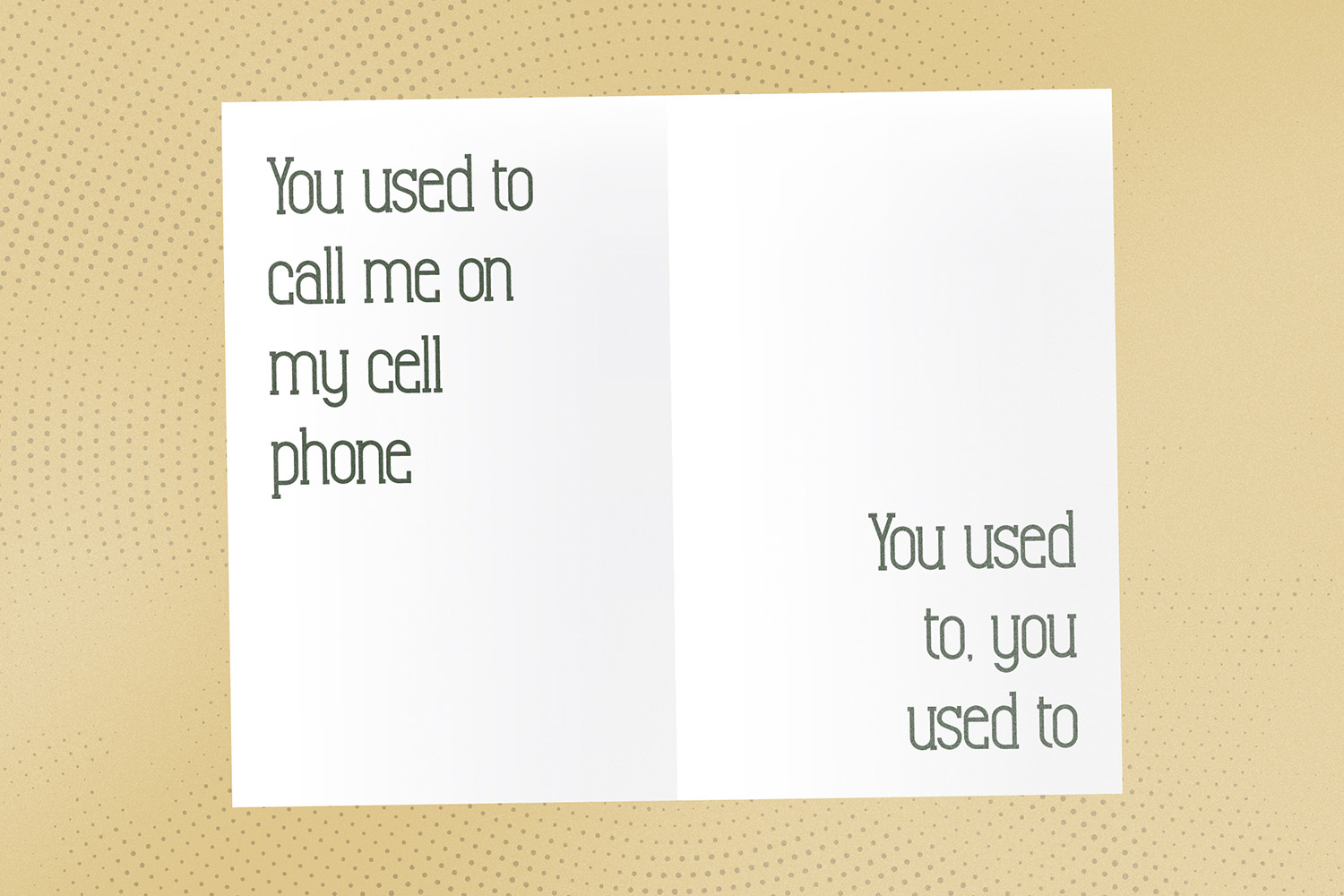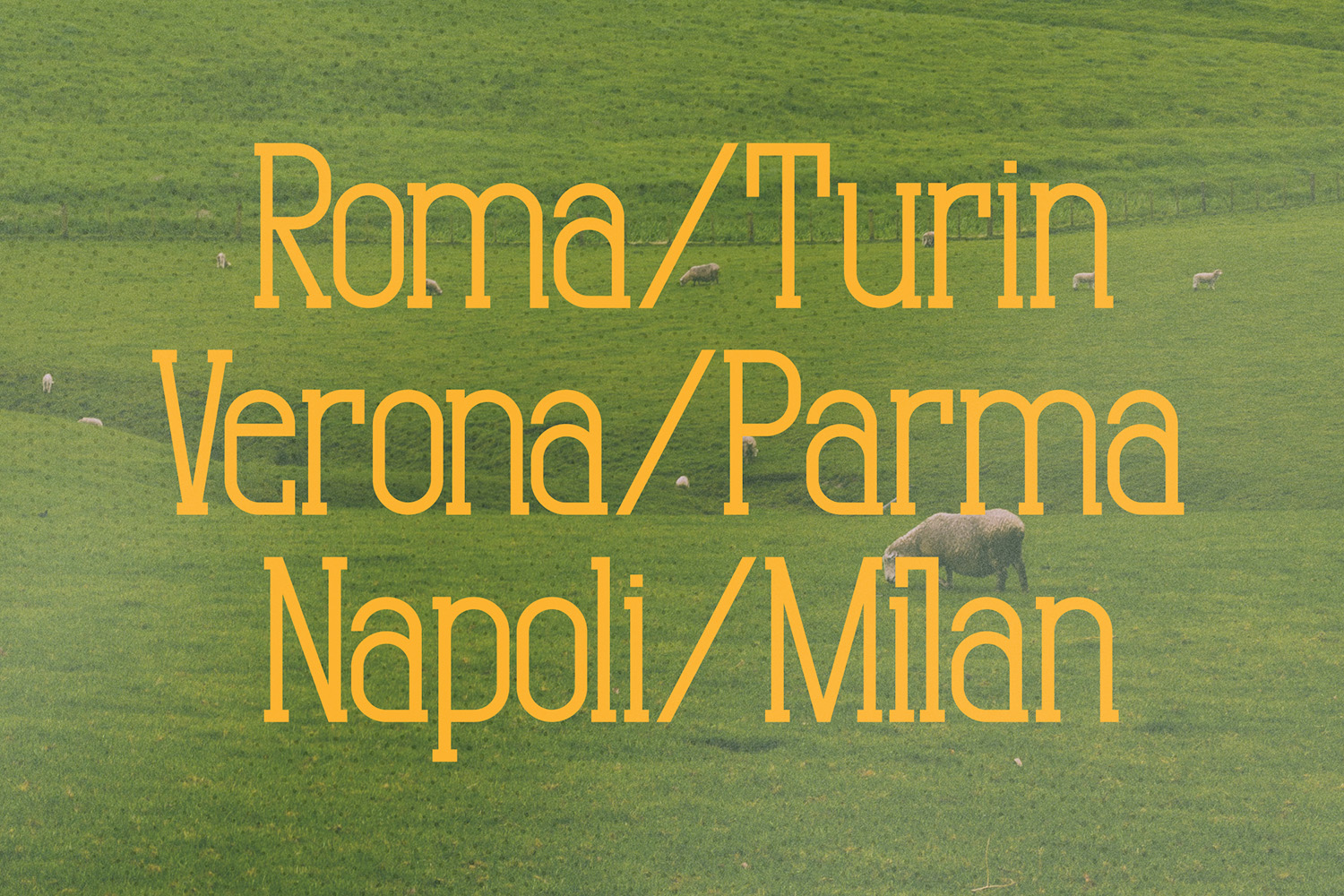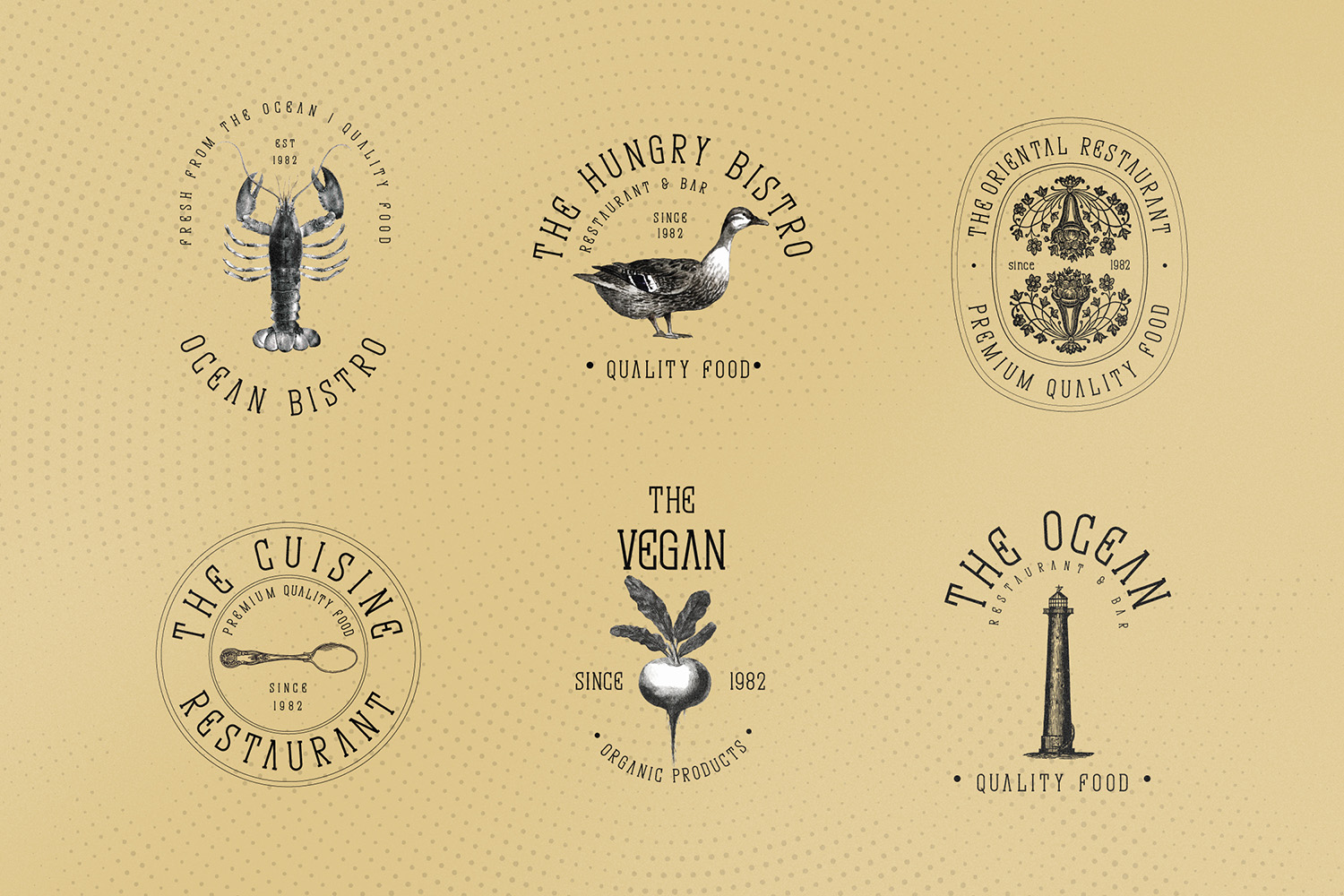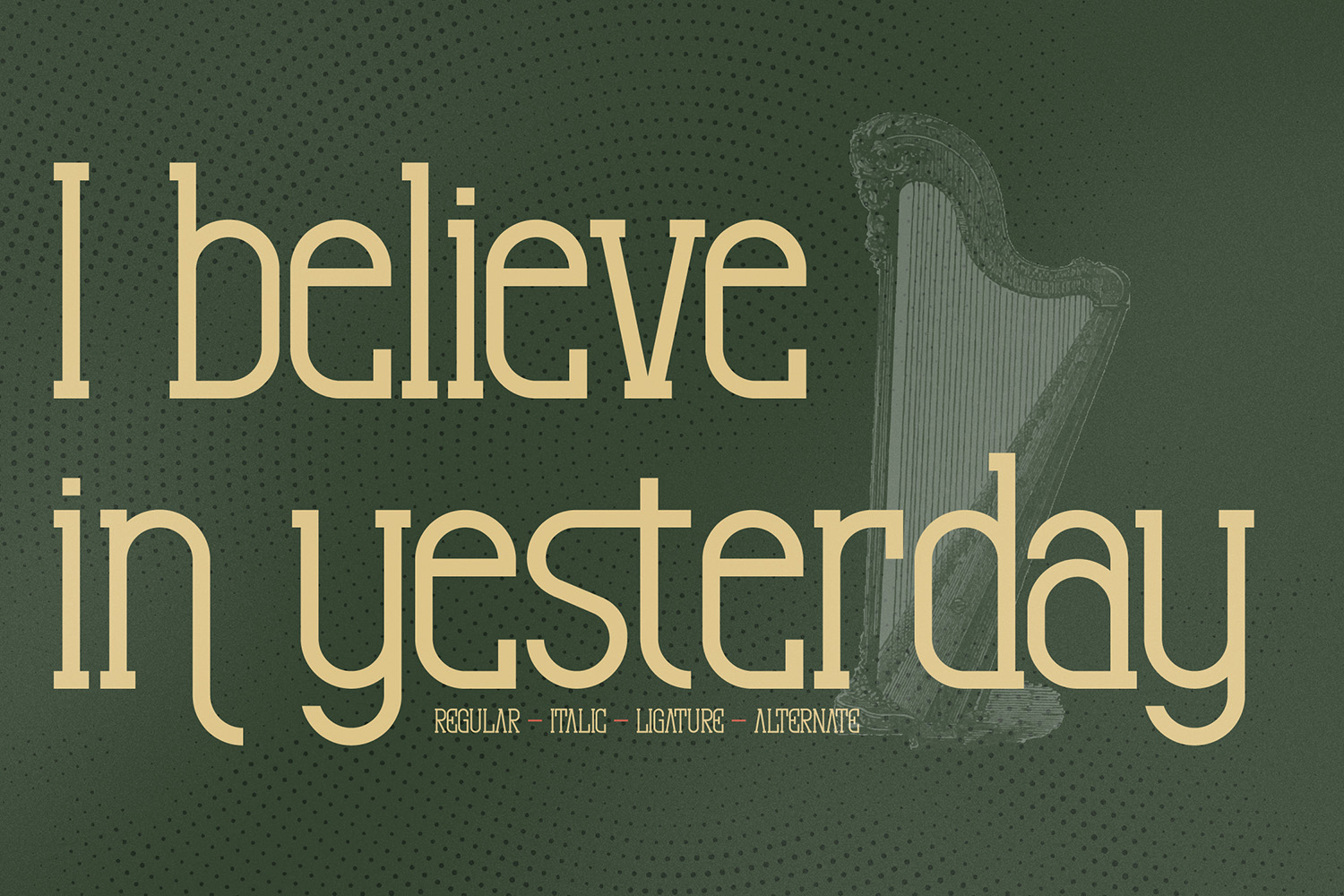
Magistan Free Font
Explore Magistan, a unique and vintage-inspired slab serif font. Elevate your projects with its ability to craft elegant and luxurious logos, design captivating book or movie titles, enhance fashion brands, grace magazine covers, adorn clothing, and bring sophistication to lettering and quotes. Unleash its versatility across a myriad of creative endeavors. This free typeface was designed by a talented Storytype Studio. If you like it don’t forget to check out the full version.